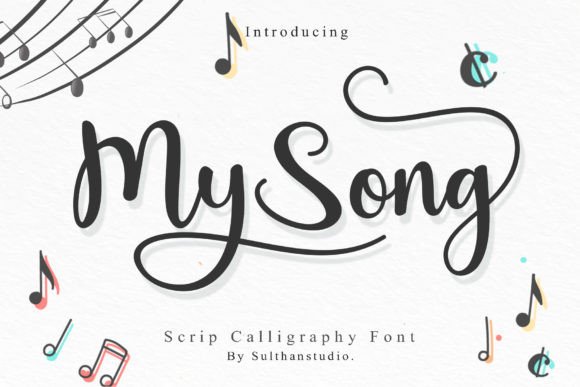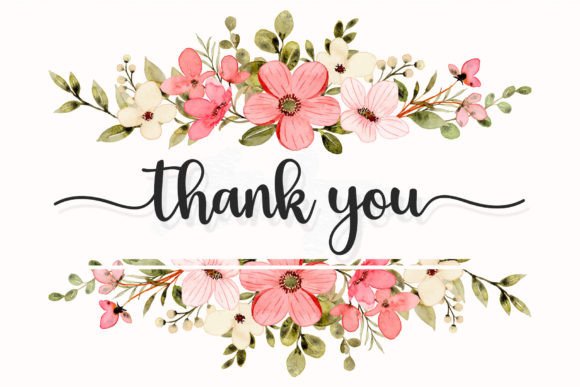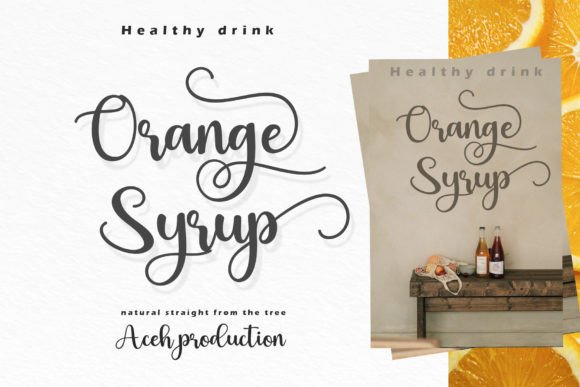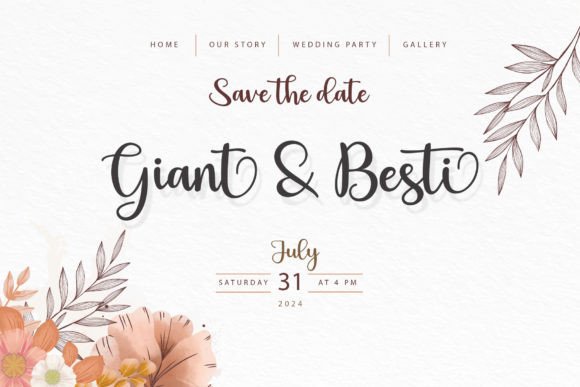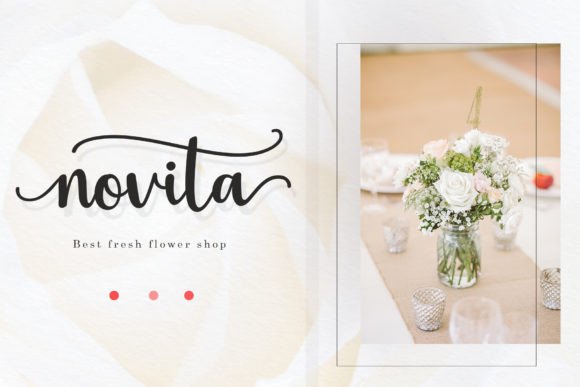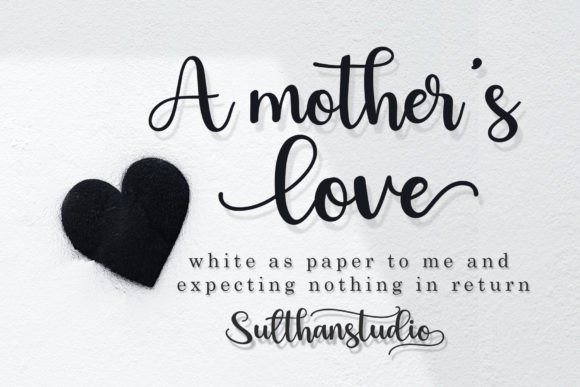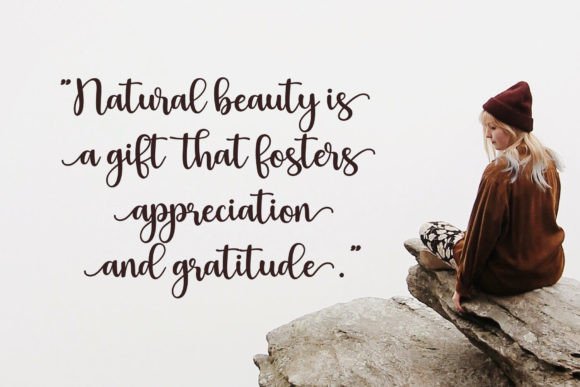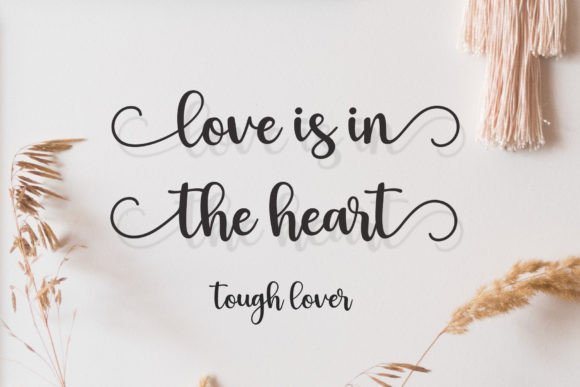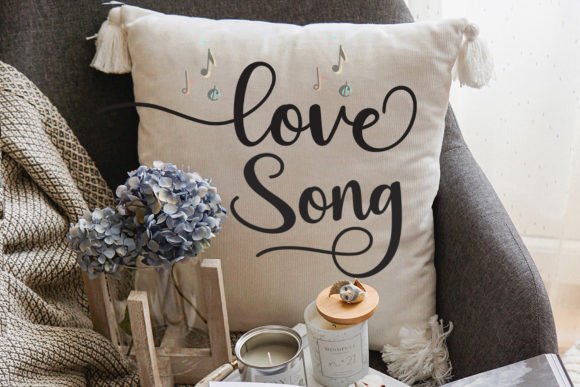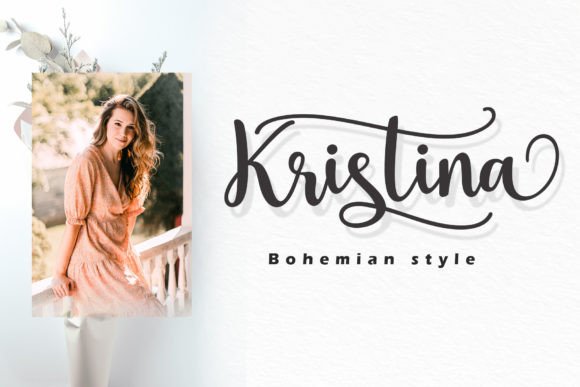
My Song Font
About My Song Font
My Song is an exquisite handwritten font, meticulously crafted to become a favorite. It blends classic calligraphic influences with a contemporary feel, resulting in a font that exudes elegance and modernity. Prepare to be enchanted by its charm and let it elevate your projects to new heights. Notably, My Song is PUA encoded, providing seamless access to all its enchanting glyphs and swashes, enhancing your design possibilities.
Bridging Tradition and Modernity
The beauty of My Song lies in its ability to bridge the gap between timeless calligraphy and contemporary design. Its graceful letterforms maintain class and sophistication while adding a fresh touch to your creative projects. Therefore, it suits both traditional and modern aesthetics.
Elegant Projects
For elegant projects like wedding invitations, quotes, and high-end branding, My Song is the perfect choice. Its calligraphic influences add romance and refinement, setting the stage for captivating designs. Thus, it enhances the emotional appeal of your work.
Versatility in Design
This font’s versatility extends to logos, business cards, and any materials needing a sophisticated touch. My Song adds uniqueness and style to your brand identity, making it stand out. Additionally, its diverse glyphs and swashes allow for endless creative customization.
Complementing Other Fonts
The inclusion of diverse glyphs and swashes, accessible through PUA encoding, allows for endless creative customization. This feature makes My Song an invaluable asset for designers crafting distinctive typographic treatments. When paired with sans-serif or serif fonts, it creates appealing contrasts that enhance visual impact.
In conclusion, My Song is not just a font; it’s a design masterpiece that marries tradition with innovation. Its versatility and PUA encoding make it indispensable for designers infusing work with elegance and flair. Let My Song be your muse for your next creative endeavor. Every letter brings sophistication and beauty to your designs.
This font also suits other applications like event invitations or personal stationery with its elegant touch. Additionally, it works well in digital media like websites or apps where a personal feel is desired. Its adaptability ensures that no matter the project, My Song will add flair that captivates viewers.